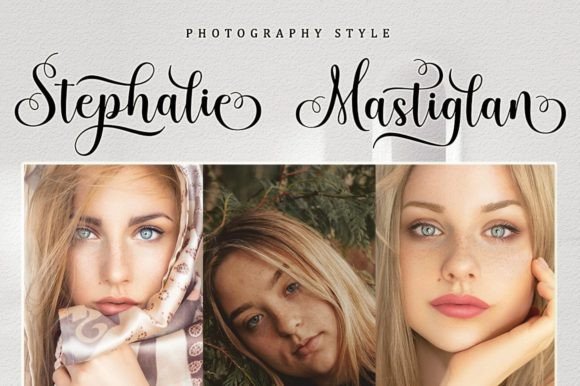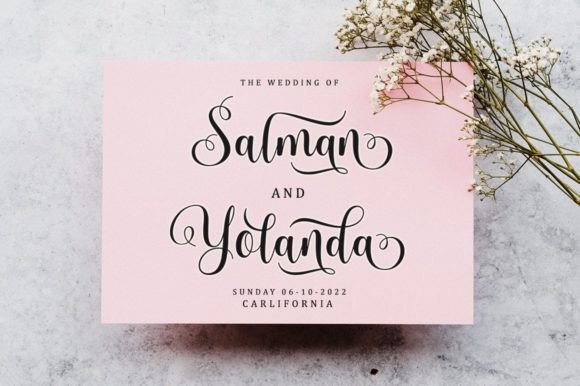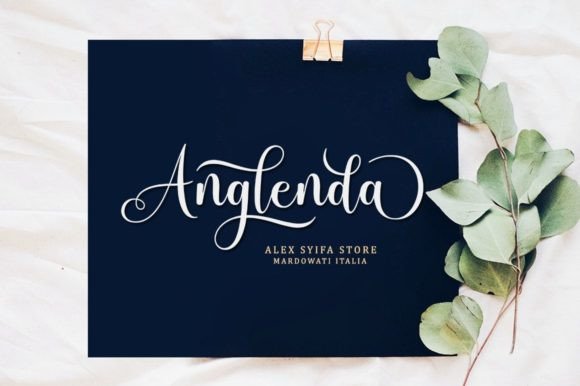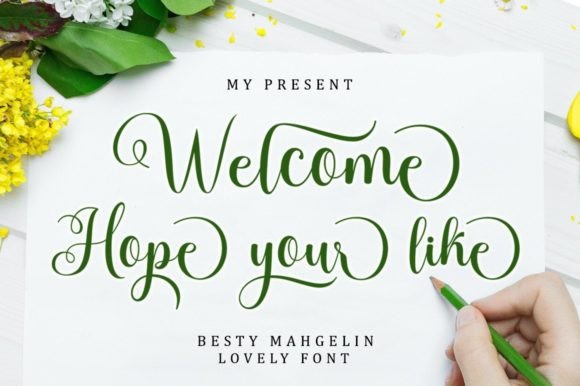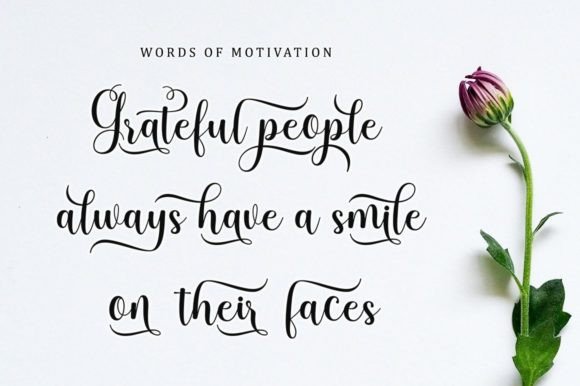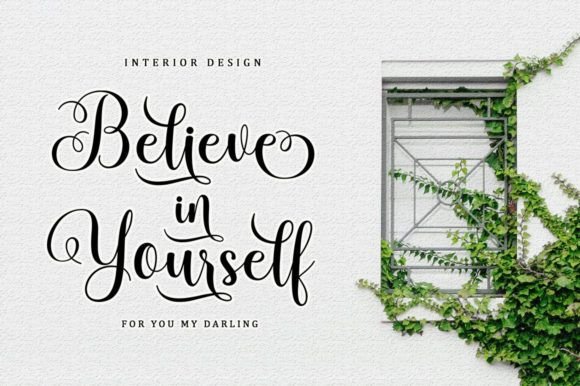
The Perfect Script for Your Next Design Project
There’s something magical about creating something from scratch – the thrill of watching a blank canvas transform into a stunning work of art. For designers, this feeling is a familiar one, and it’s what drives us to push the boundaries of creativity every day. Whether you’re crafting a logo for a new business or designing a wedding invitation for a loved one, the right font can make all the difference.
Enter the Besty Mahgelin Font, a beautiful script that’s perfect for adding a touch of romance and elegance to your designs. With its delicate lines and flowing curves, this font is a designer’s dream come true. Whether you’re working on a branding project, a wedding design, or simply need a beautiful font for a social media post, the Besty Mahgelin Font is a valuable asset to have in your toolkit.
Besty Mahgelin Font Key Features
- Unique Characteristics: This font features a unique blend of modern and vintage elements, with intricate details and ornate flourishes that set it apart from other fonts.
- Kerning and Ligatures: The font includes advanced kerning and ligature features, ensuring smooth and professional text display, even in complex layouts.
Review of Besty Mahgelin Font
Overall, I have mixed feelings about the Besty Mahgelin Font. While it has some redeeming qualities, there are also some limitations that might make it less suitable for certain projects.
- ✨ Unique and creative design: The Besty Mahgelin Font has a distinctive look that can add a touch of personality to your designs.
- ✨ Wide range of applications: This font can be used for various projects, from logos and branding to typography and digital media.
- ✨ High-quality font files: The font files are well-designed and don’t appear to have any issues with kerning or spacing.
- ⚠️ Limited legibility: At smaller font sizes, the Besty Mahgelin Font can become difficult to read, especially for users with visual impairments.
- ⚠️ Lack of compatibility: I encountered some issues with the font not displaying correctly in certain software or operating systems.
Overall, the Besty Mahgelin Font is a creative and versatile option that can add a unique touch to your designs. However, its limitations in terms of legibility and compatibility might make it less suitable for certain projects. With some careful consideration and adjustments, this font could be a great choice for designers looking to add some personality to their work.
Besty Mahgelin Font: A Practical Application Guide
For optimal results, use the Besty Mahgelin font in combination with bold or italic styles to add emphasis and visual interest.
Experiment with different font sizes and color combinations to create a unique look that suits your design needs.
The Besty Mahgelin font is ideal for:
- Brand logos and identity
- Editorials and publications